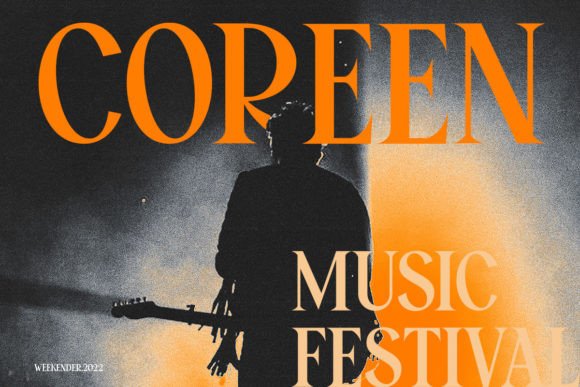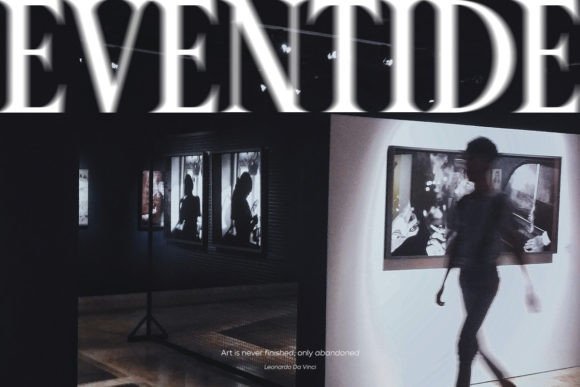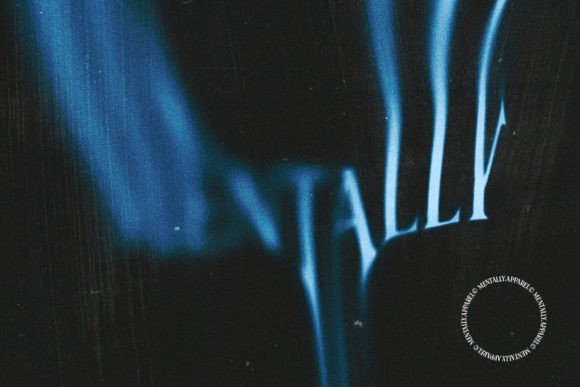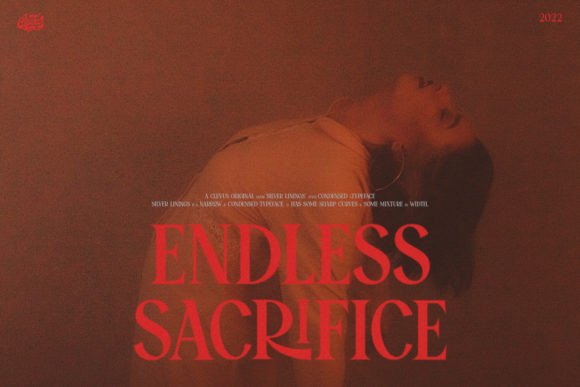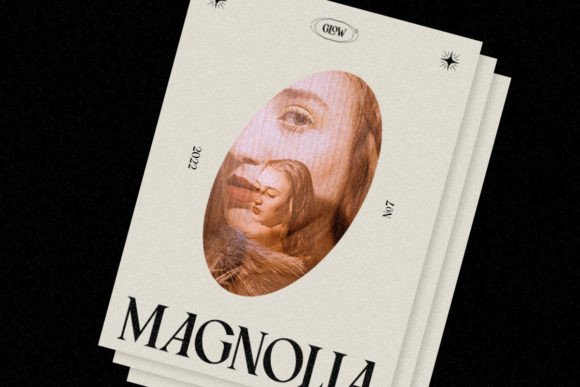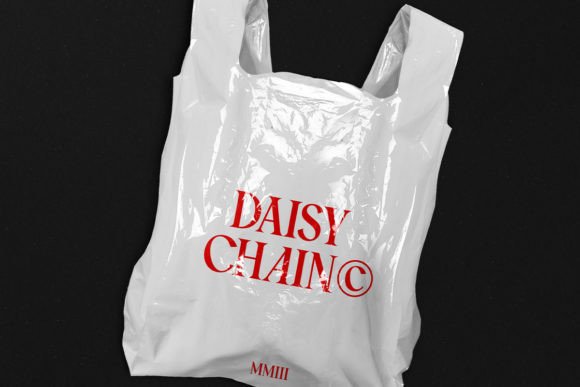
Introduction to Silver Linings Font
Have you ever stared at a blank canvas, feeling stuck and uninspired? We’ve all been there. But then, something sparks – a flash of creativity, a dash of color, or a font that just makes everything click. For designers, finding the perfect font can be the game-changer that takes a project from meh to mesmerizing. And that’s exactly what the Silver Linings Font aims to do.
This modern serif font is designed to add a touch of sophistication and elegance to your headlines, titles, and other design projects. With its sleek lines and refined details, it’s the perfect design resource for creatives looking to elevate their work. And the best part? It’s free to download, making it an accessible high-quality asset for designers of all levels.
Key Features of Silver Linings Font
- Unique and elegant design with a touch of sophistication, perfect for creative projects.
- Transparent background, making it easy to use on any design resource, from logos to typography.
- Available in a single weight, making it easy to use in a variety of design contexts.
Honest Review: Silver Linings Font
As a designer, I’m always on the lookout for high-quality design resources to elevate my creative projects. The Silver Linings Font caught my attention, and I was excited to try it out.
Here are some things that worked well: ✨ The font has a unique, modern aesthetic that’s perfect for minimalist designs. ✨ It’s also incredibly versatile, with a wide range of weights and styles to choose from. ✨ Plus, the transparent background makes it easy to layer over other design elements.
Overall, I was impressed with the Silver Linings Font. It’s a great addition to any design arsenal, and the high quality makes it a worthwhile investment. If you’re looking for a unique and modern font for your next creative project, I’d definitely recommend checking it out.
- Unique, modern aesthetic
- Wide range of weights and styles
To get the most out of the Silver Linings Font, experiment with different font sizes, colors, and combinations. Use it to add a touch of elegance to your design. You can also pair it with other design elements, such as icons or graphics, to create a cohesive look.
The Silver Linings Font is ideal for creative projects, such as blog posts, social media graphics, or marketing materials. It’s also suitable for presentations, documents, or websites that require a touch of sophistication.